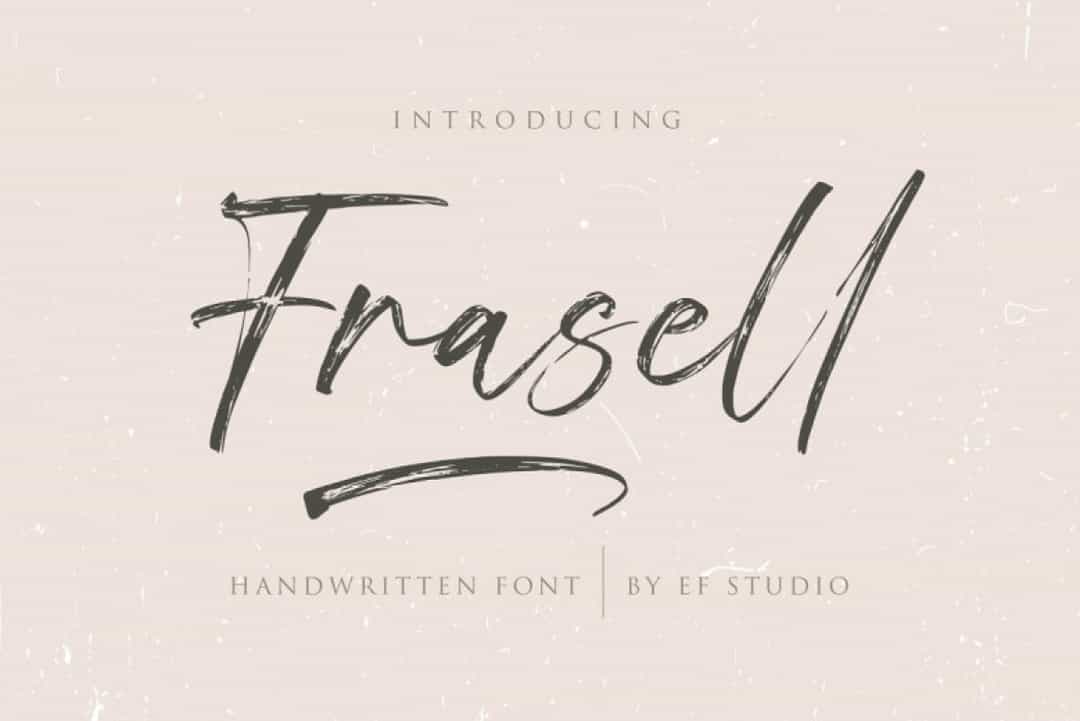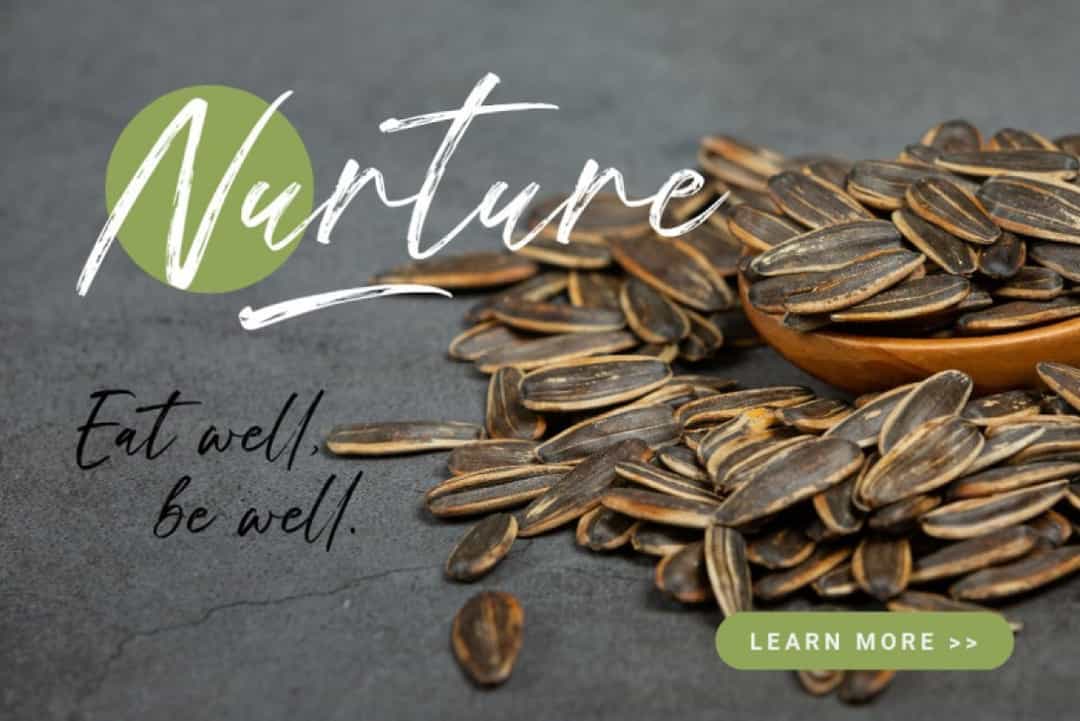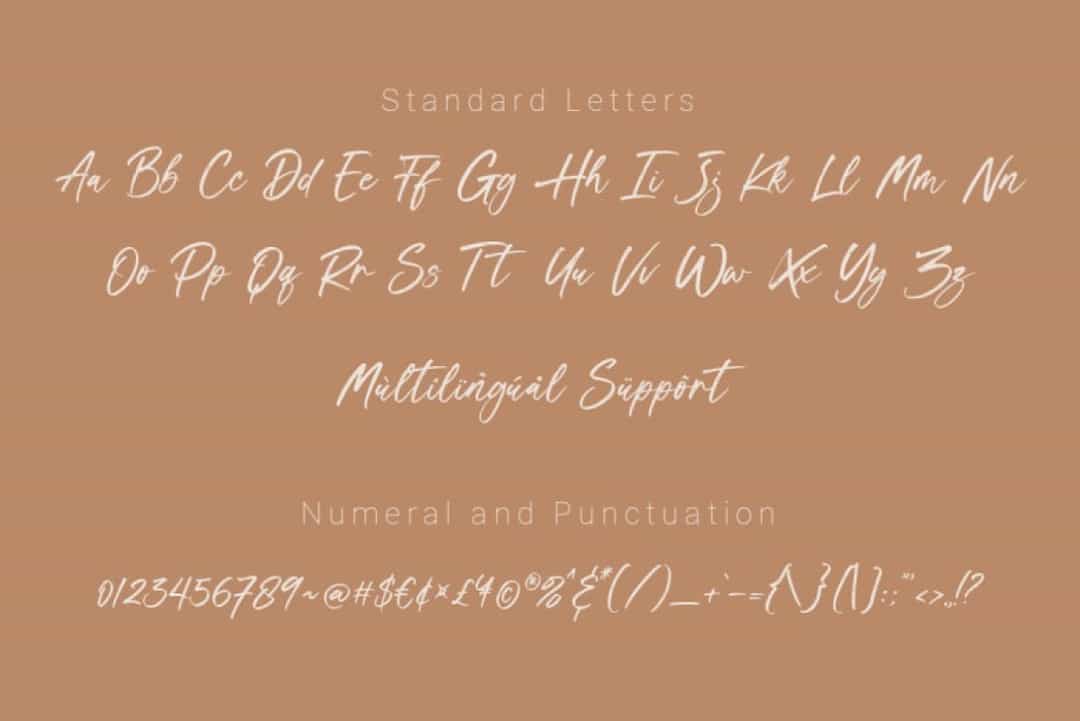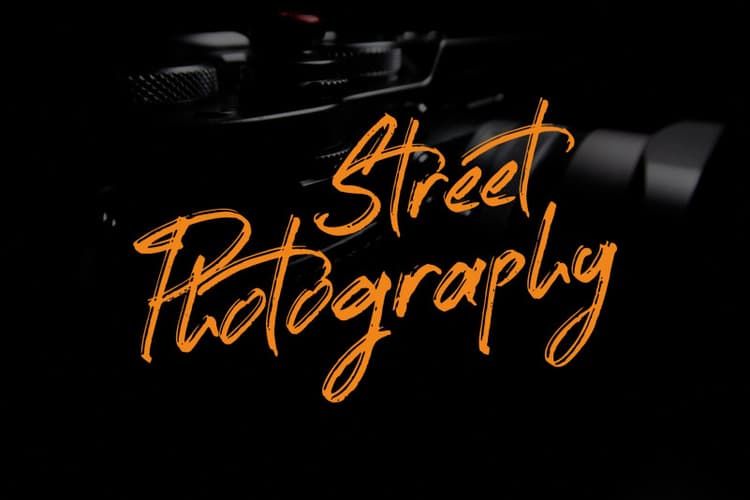
Frasell is a brush-written font designed specifically to meet branding, invitation, packaging, product advertising, website magazine logo design needs, and logo designs of various kinds. This font comes equipped with upper and lower case punctuation marks, numerals, letters of multiple languages (including Roman script), symbols, ligature ends and additional swashes for your use.